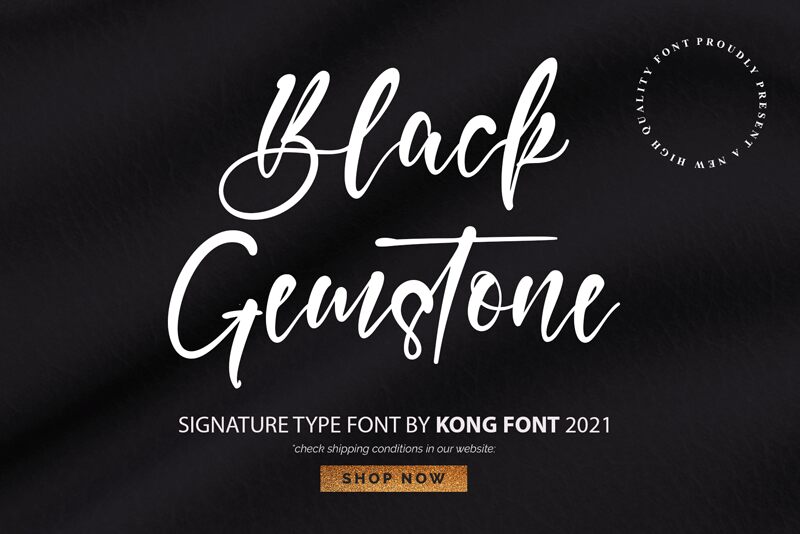
Blackgemstone
Blackgemstone, designed by Kong Font, is a captivating calligraphy font that exudes elegance and sophistication. With its semi-light weight, this font adds a touch of grace to any project.
Perfect for wedding invitations, high-end branding materials, or luxury product packaging, Blackgemstone effortlessly captures the essence of refined craftsmanship. Its impeccable strokes and intricate details make it ideal for creating personalized signatures or adding a touch of handwritten charm to your designs.
Let Blackgemstone elevate your creations and leave a lasting impression on your audience.